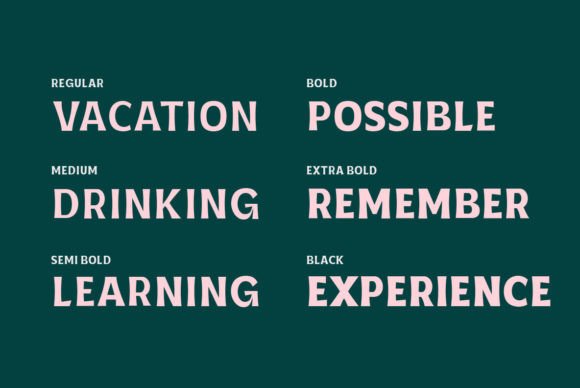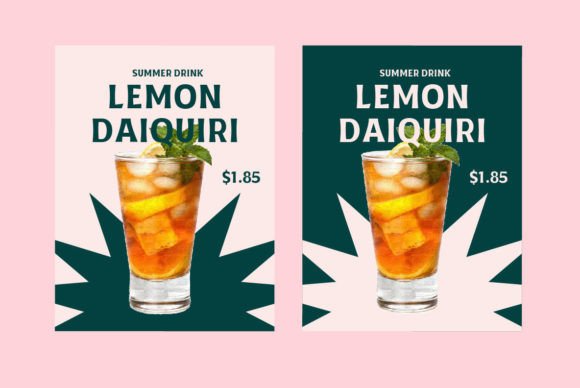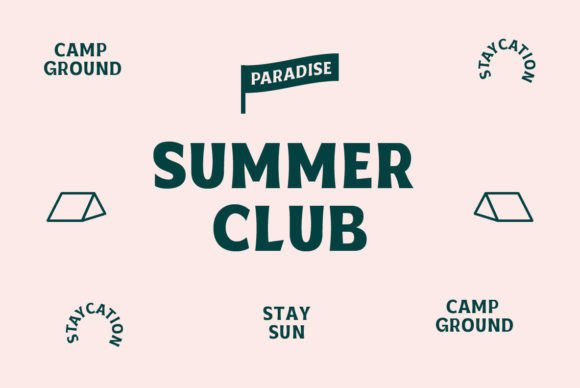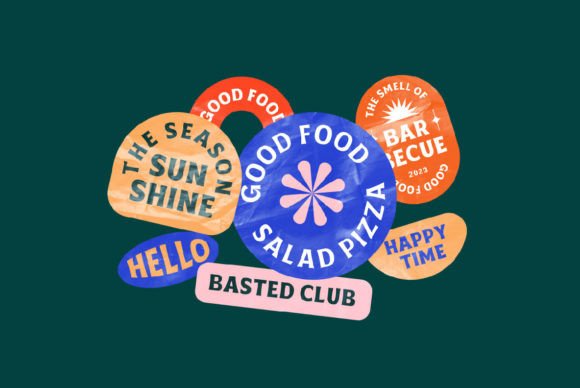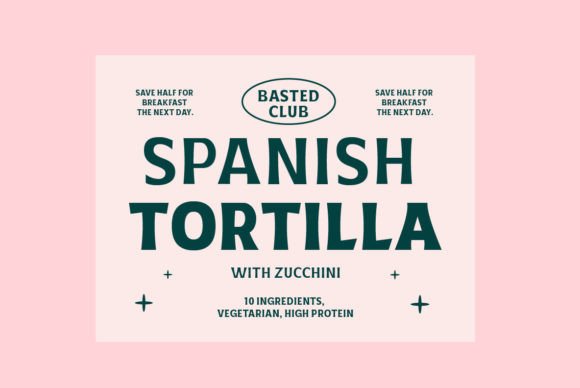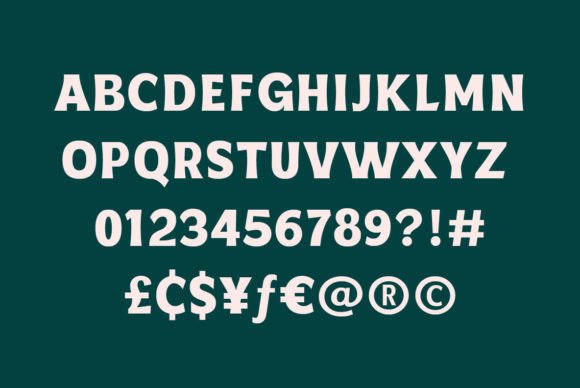
Step into the Spotlight with Basted Club Font
Do you remember the excitement of walking into a vintage nightclub, surrounded by the pulsating lights and the infectious energy of the crowd? For many designers, the thrill of creating a design that captures that same essence is a challenge worth taking. It’s a moment of inspiration that sparks the idea to create something truly unique – and that’s exactly what the Basted Club Font is designed to evoke.
This font family is a masterful blend of retro aesthetic and modern design, perfect for designers looking to add a touch of vintage glamour to their projects. With its strong and firm letterforms, the Basted Club Font is a valuable addition to any designer’s toolkit, ideal for creating posters, merchandise, logos, or product branding that exudes a bygone era of sophistication and style.
Basted Club Font Key Features
- Font Family: Basted Club is a modern sans-serif font, ideal for digital and print media.
- Unique Characteristics: Basted Club features a unique blend of modern and vintage elements, with a focus on legibility and readability.
Basted Club Font Review
Overall, I think the Basted Club Font is a fun, modern addition to any design project. ✨ It’s got a unique feel that’s sure to grab attention and make your content stand out.
Here are some of the things I love about the Basted Club Font:
- Its quirky, handwritten feel is perfect for adding a touch of personality to your designs.
- The font is highly legible, even at small sizes, making it a great choice for body text.
- There are plenty of weights and styles to choose from, giving you plenty of options for creating visually interesting typography.
- ⚠️ The font may be too playful for some designs, particularly those that require a more formal tone.
- ⚠️ Some of the weights and styles can be a bit inconsistent, which may make it difficult to achieve a cohesive look.
Overall, I’d say the Basted Club Font is a great choice for designers who want to add a bit of whimsy to their projects. Just be sure to use it thoughtfully and balance it out with more formal elements to avoid overwhelming the viewer.
For the most effective use of Basted Club Font, consider the following tips:
Use it for titles, headings, and other emphasis to add a touch of elegance and sophistication.
Pair it with a clean and simple background to let the font take center stage.
Experiment with different font sizes and styles to create visual interest and hierarchy.
Basted Club Font is ideal for:
Event branding and marketing materials
Food and beverage labels and packaging
Any design project where a touch of elegance and sophistication is desired.